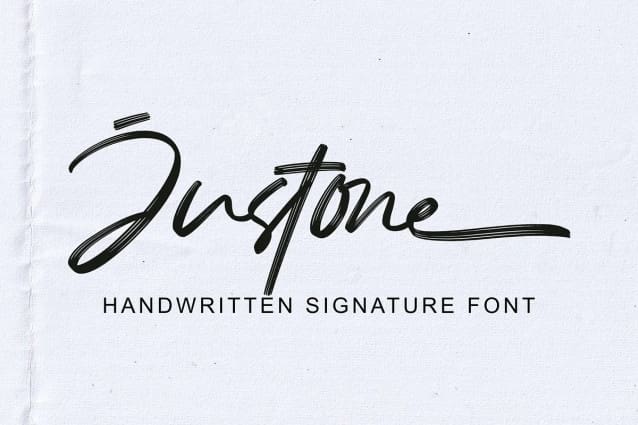
Justone Brush Font
Justone Brush Font, a handwritten signature textured font, all caps. Justone font is suitable for branding, whether in the form of logo text, text on social media posts, text on offline and digital advertising, apparel, product packaging, editorial features, signature logo, etc.